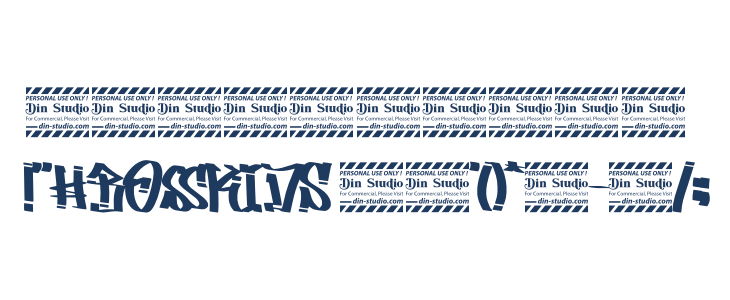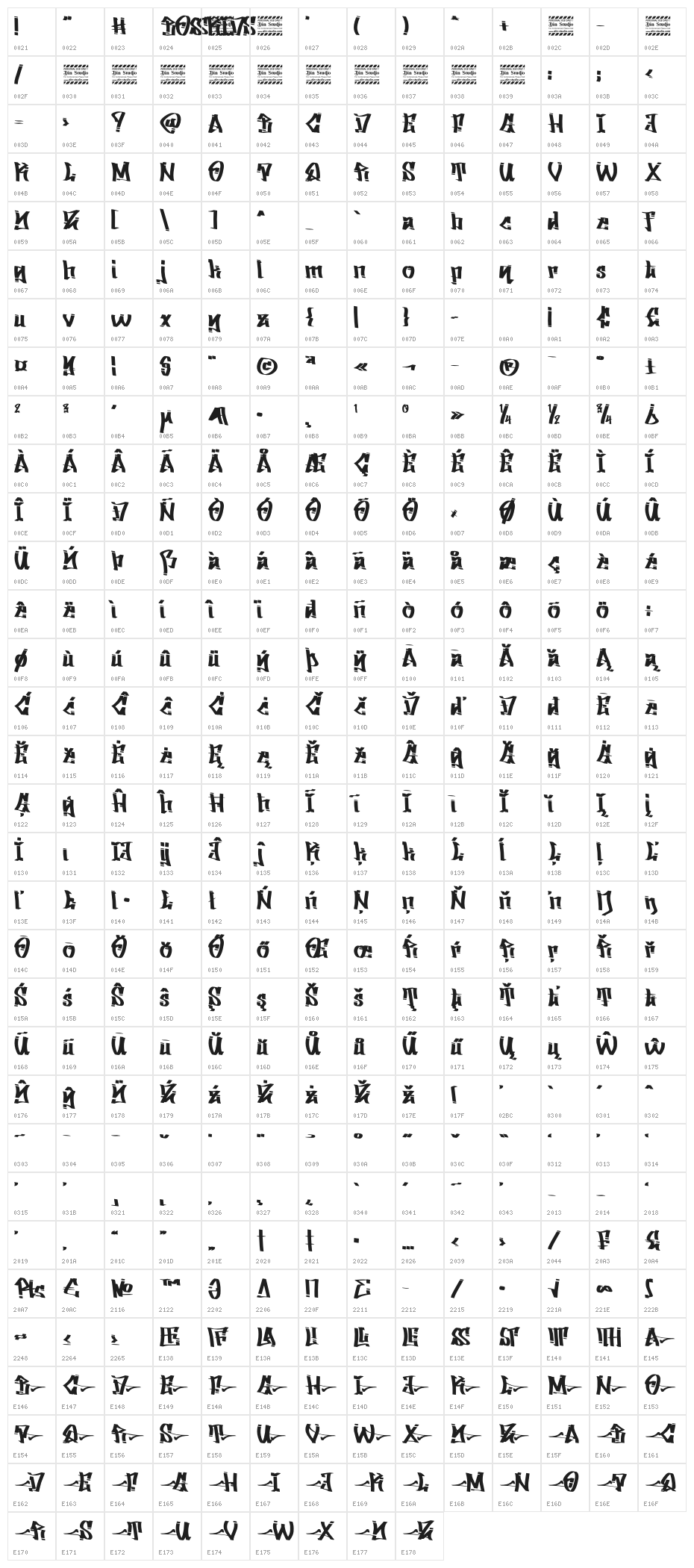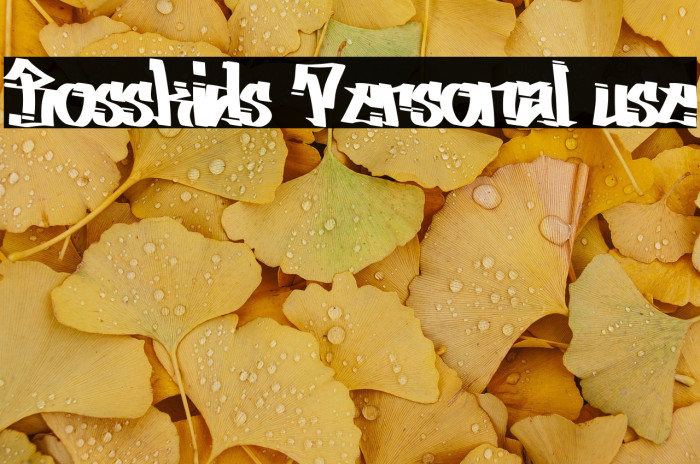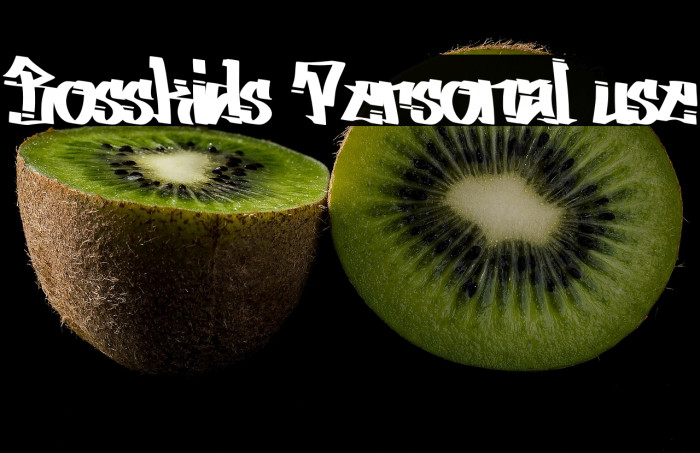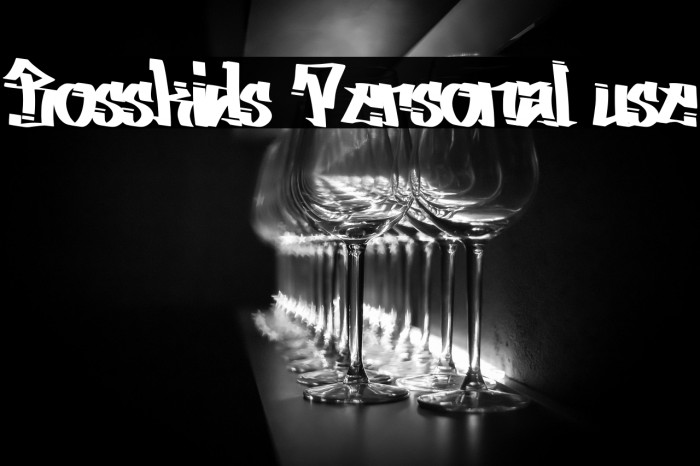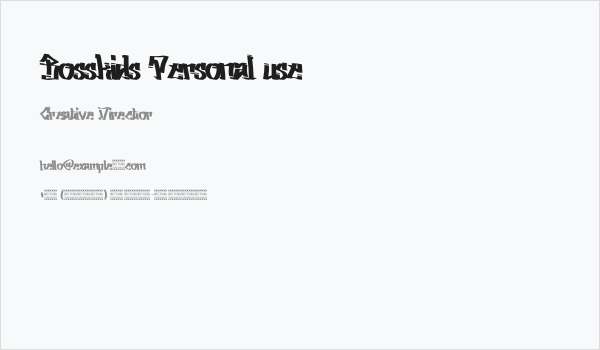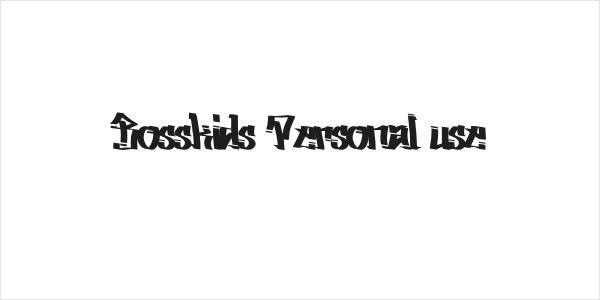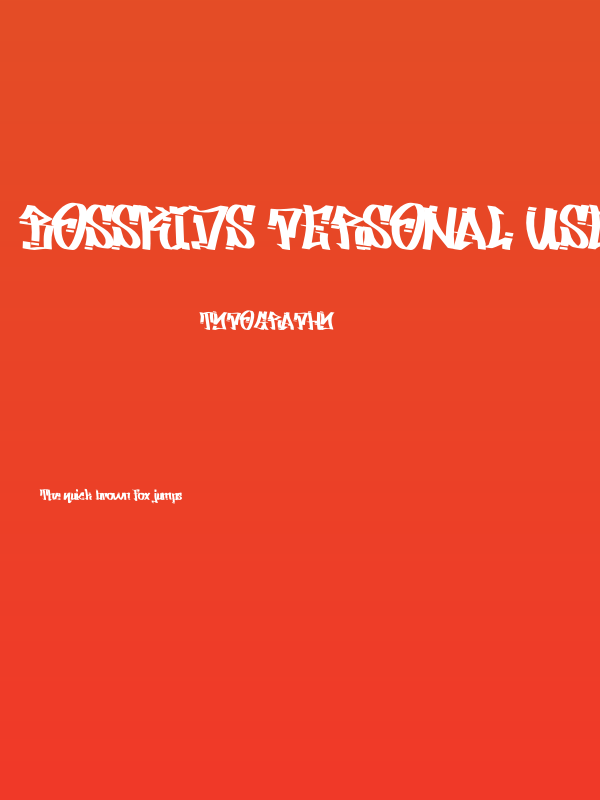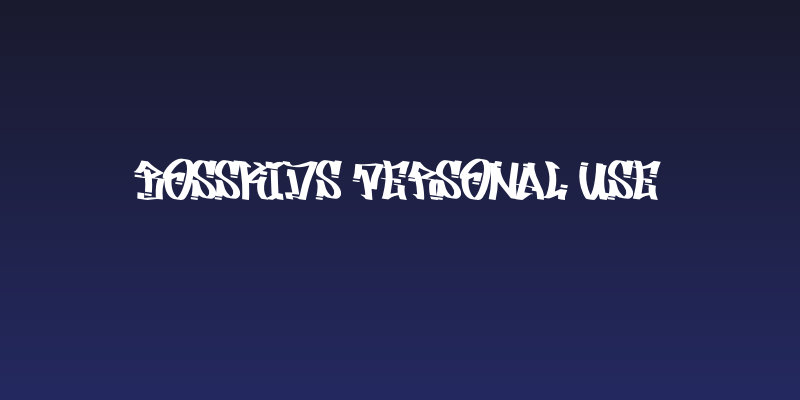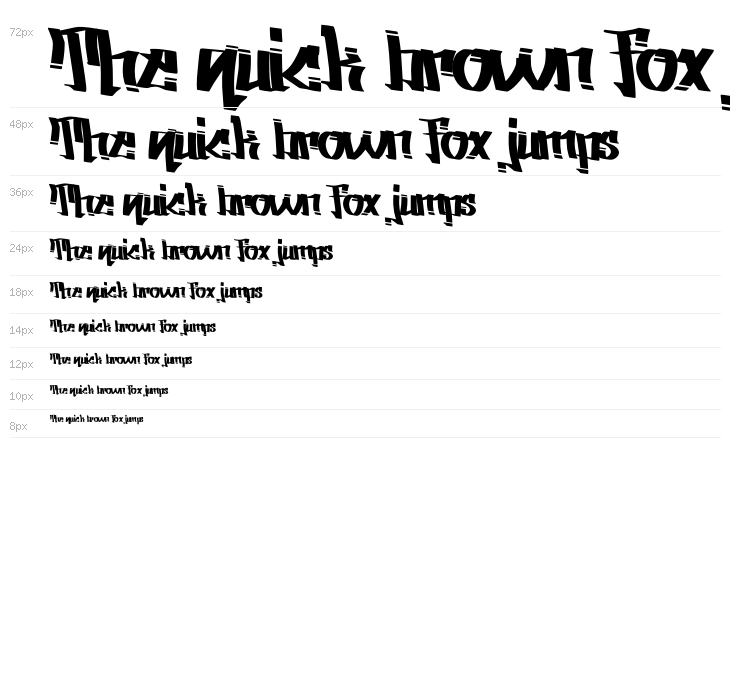
Bosskids Personal use Font
Bosskids Personal use Description
This font features a bold and dynamic style with a graffiti-inspired aesthetic. The letters are characterized by sharp angles and a sense of movement, giving them a rebellious and urban feel. The uppercase and lowercase letters maintain a consistent style, with exaggerated strokes and unique character shapes. The numbers and special characters follow the same energetic design, making the font suitable for eye-catching displays. Its distinctive appearance makes it ideal for projects that require a strong visual impact.
| Overall Style | Modern, Urban |
| Proposed Projects | Perfect for street art designs, urban-themed posters, music album covers, and edgy branding projects. |